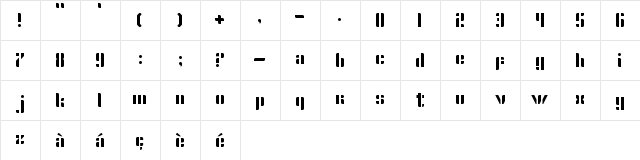
geomet Regular Font Preview
geomet Regular
geomet Regular Font Details
| Designer | In고Vital |
Design Context for geomet Typeface
geomet takes a measured approach to typography — its balanced proportions and neutral character make it a reliable workhorse for both digital and print work.